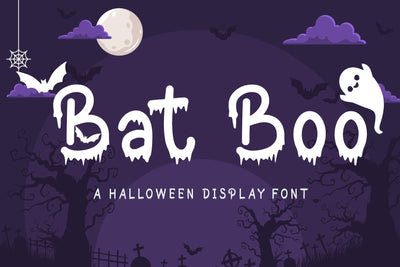
Bat Boo - Halloween Display Font
Bat Boo is a cool and spooky display font. This font is PUA encoded which means you can access all of the glyphs and swashes with ease!
Bat Boo Features :
- (a-z) titling, (a-z) swashes, ligatures
- Uppercase alternates
- Support multilingual; ä ö ü Ä Ö Ü ß ¿ ¡
- This font is PUA encoded which means you can access all of the playful glyphs, swashes, and ligatures with ease!